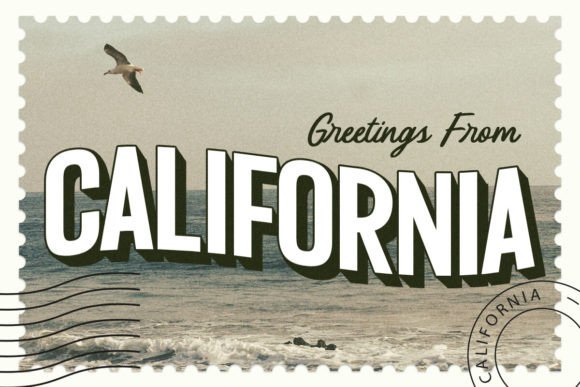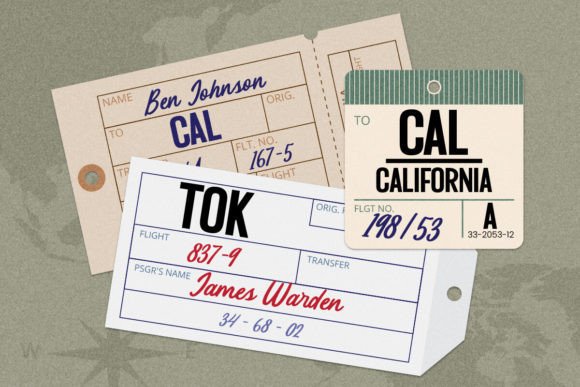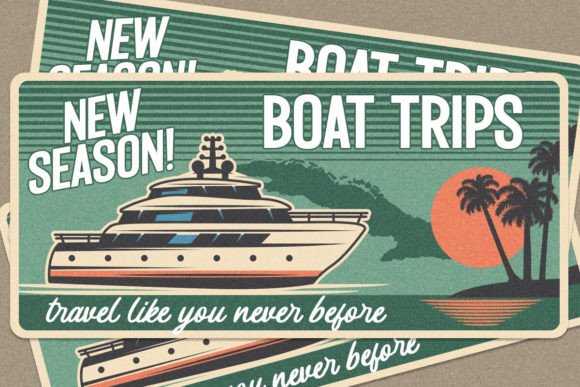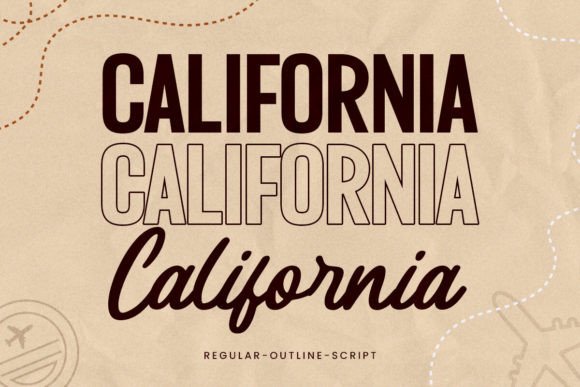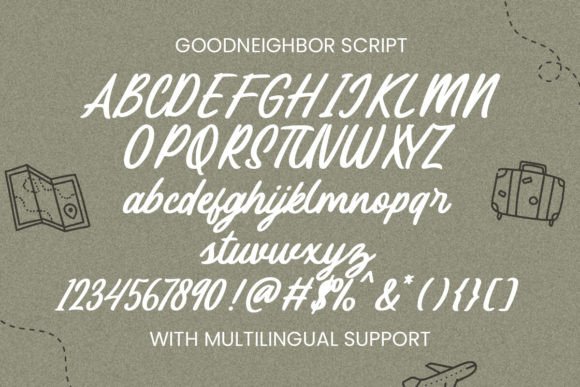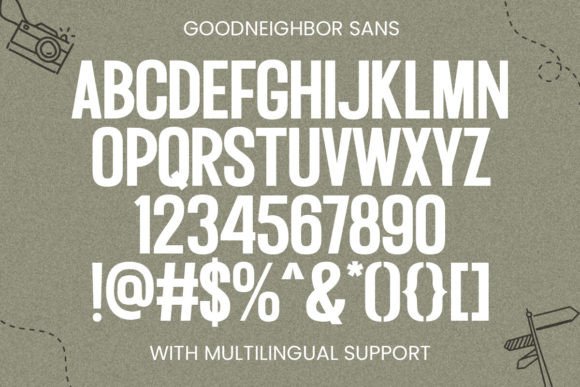
Introducing Goodneighbor: A Timeless Vintage Font Duo for Your Creative Projects
Are you looking for a font that can add a touch of nostalgia to your designs? Look no further than Goodneighbor, a versatile vintage font duo that combines the elegance of the past with the sophistication of the present. This beautifully crafted font duo features a script font paired with a classic sans serif, along with an elegant sans serif outline version, making it perfect for a wide range of creative projects.
A Perfect Blend of Style and Versatility
Goodneighbor is more than just a font – it’s a design solution that can elevate your work to new heights. The font duo is carefully crafted to provide a unique and charming character that can add a touch of vintage flair to your designs. Whether you’re aiming for a sophisticated or playful look, Goodneighbor ensures that your designs stand out from the crowd.
The Font Duo: A Closer Look
The Goodneighbor font duo consists of three unique fonts:
- Script Font: The script font is a beautifully crafted, flowing script that adds a touch of elegance and sophistication to any design. Its fluid lines and curves make it perfect for creating eye-catching logos, stylish invitations, and elegant packaging.
- Classic Sans Serif: The classic sans serif font is a timeless and versatile font that pairs perfectly with the script font. Its clean lines and simple design make it ideal for creating retro posters, timeless packaging, and stylish headings.
- Elegant Sans Serif Outline: The elegant sans serif outline font adds a touch of sophistication and elegance to any design. Its delicate lines and curves make it perfect for creating subtle backgrounds, textures, and design elements.
Goodneighbor is a versatile font duo that can be used for a wide range of creative projects, including:
- Logos: Create eye-catching logos that stand out from the crowd with the script font or classic sans serif font.
- Invitations: Design stylish invitations that set the tone for any event or occasion with the script font or elegant sans serif outline font.
- Posters: Create retro posters that evoke a sense of nostalgia with the classic sans serif font or elegant sans serif outline font.
- Packaging: Add a touch of timeless elegance to your packaging designs with the script font or classic sans serif font.
Why Choose Goodneighbor?
So why choose Goodneighbor over other font duos? Here are just a few reasons:
- Unique Character: Goodneighbor has a unique and charming character that sets it apart from other font duos.
- Versatility: The font duo is incredibly versatile and can be used for a wide range of creative projects.
- Elegance: Goodneighbor adds a touch of elegance and sophistication to any design.